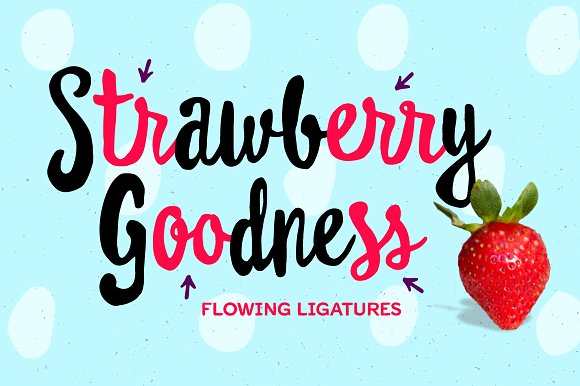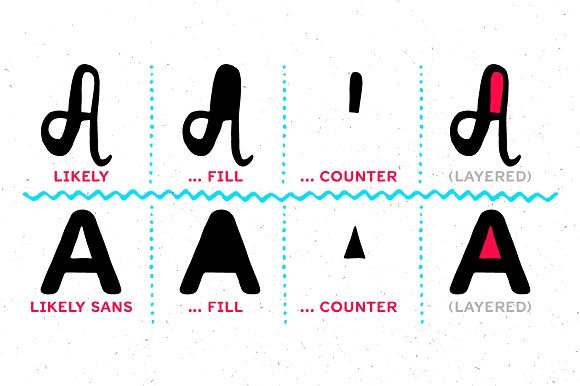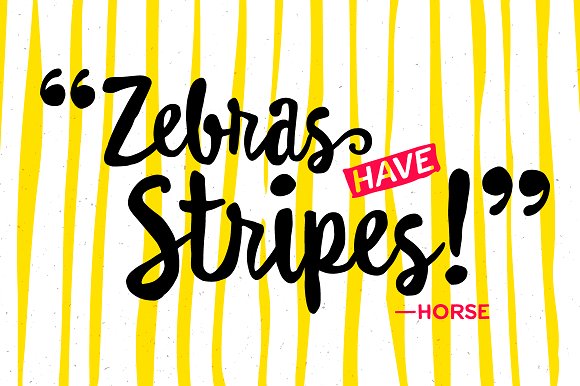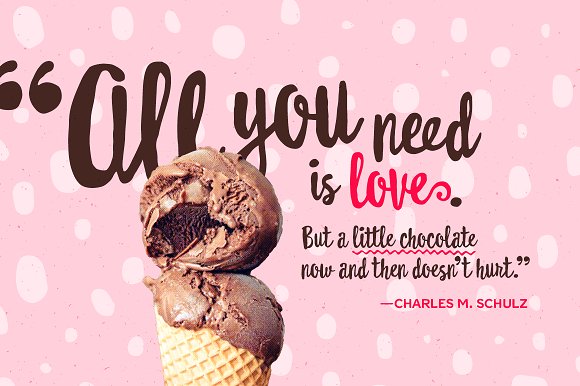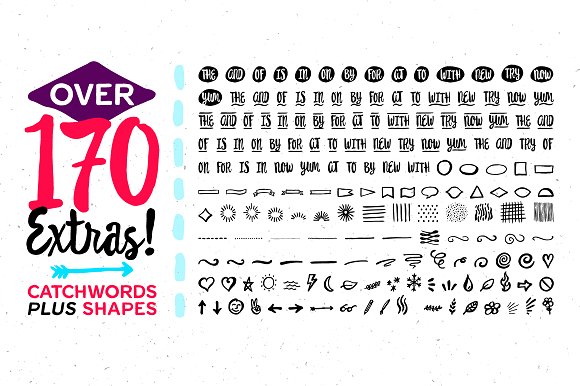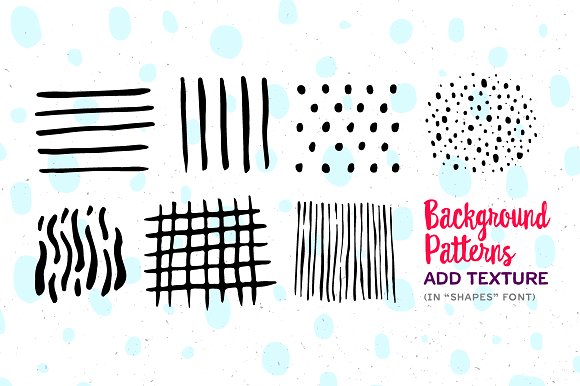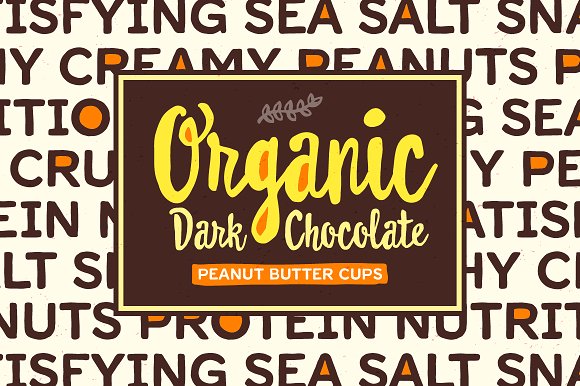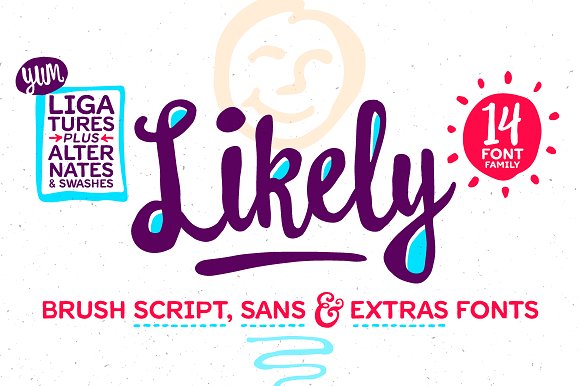
Likely Font Family
Likely is a joyful, brush script type family with complementary all-caps sans and extras styles. Hand drawn freely but carefully, each of the fonts are designed to work together to present a vibrant and natural package.